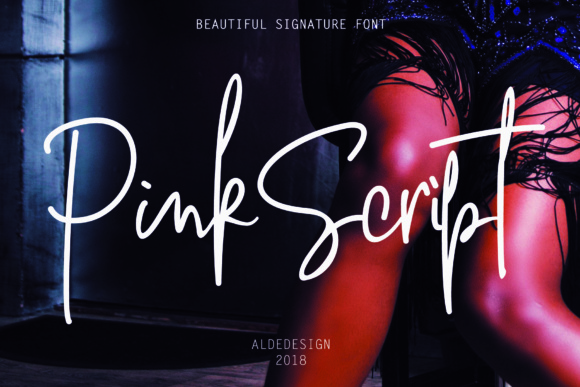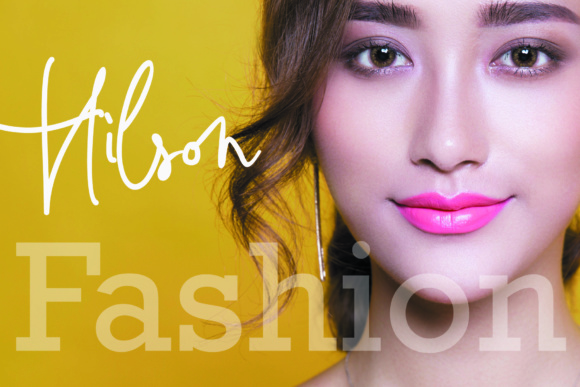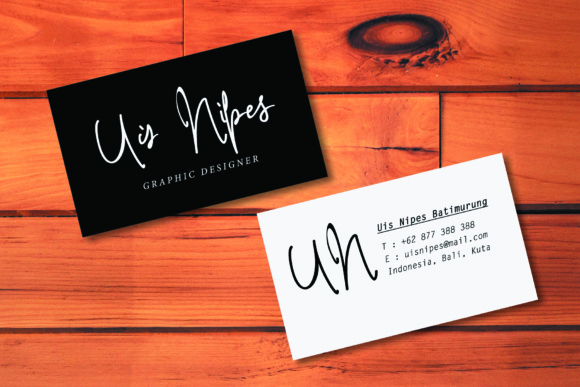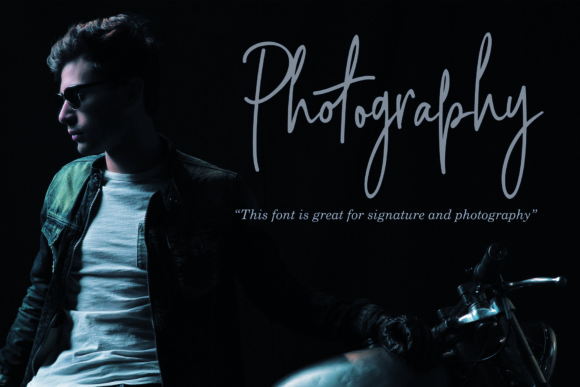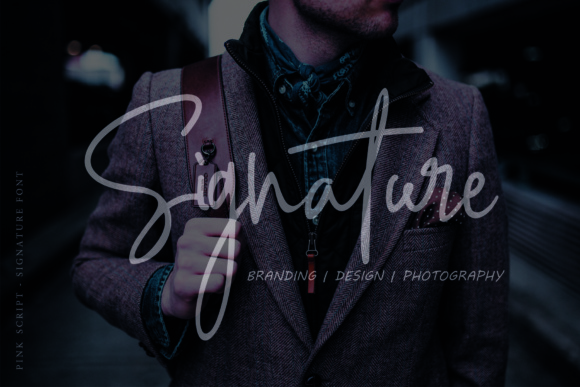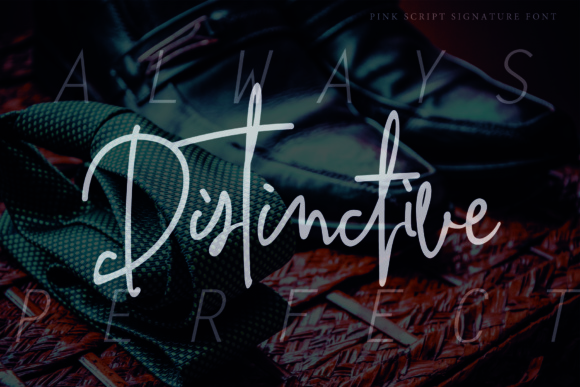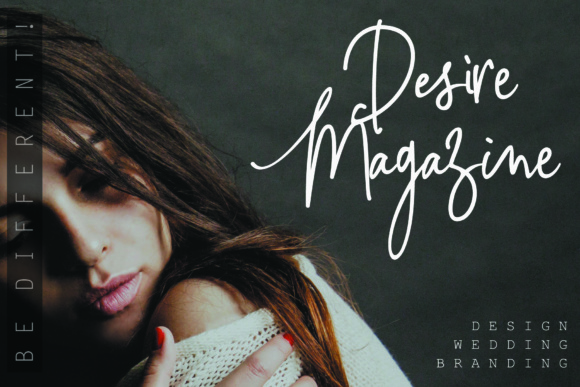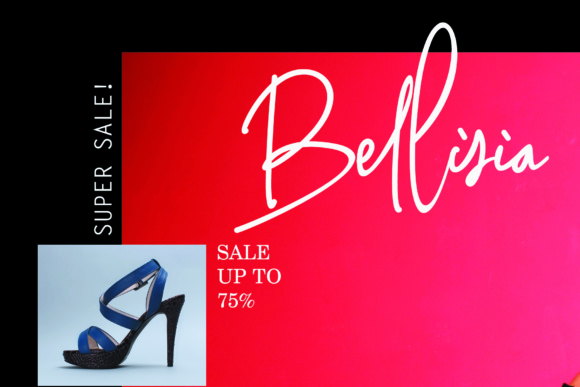
Pink Script Font
About Pink Script Font
The Pink Script is a fashionable and quirky new handwriting font with some sexy and stylish extras. It was created to look as close to a natural handwritten script as possible by including lots of ligatures, and a full set of lowercase alternates.